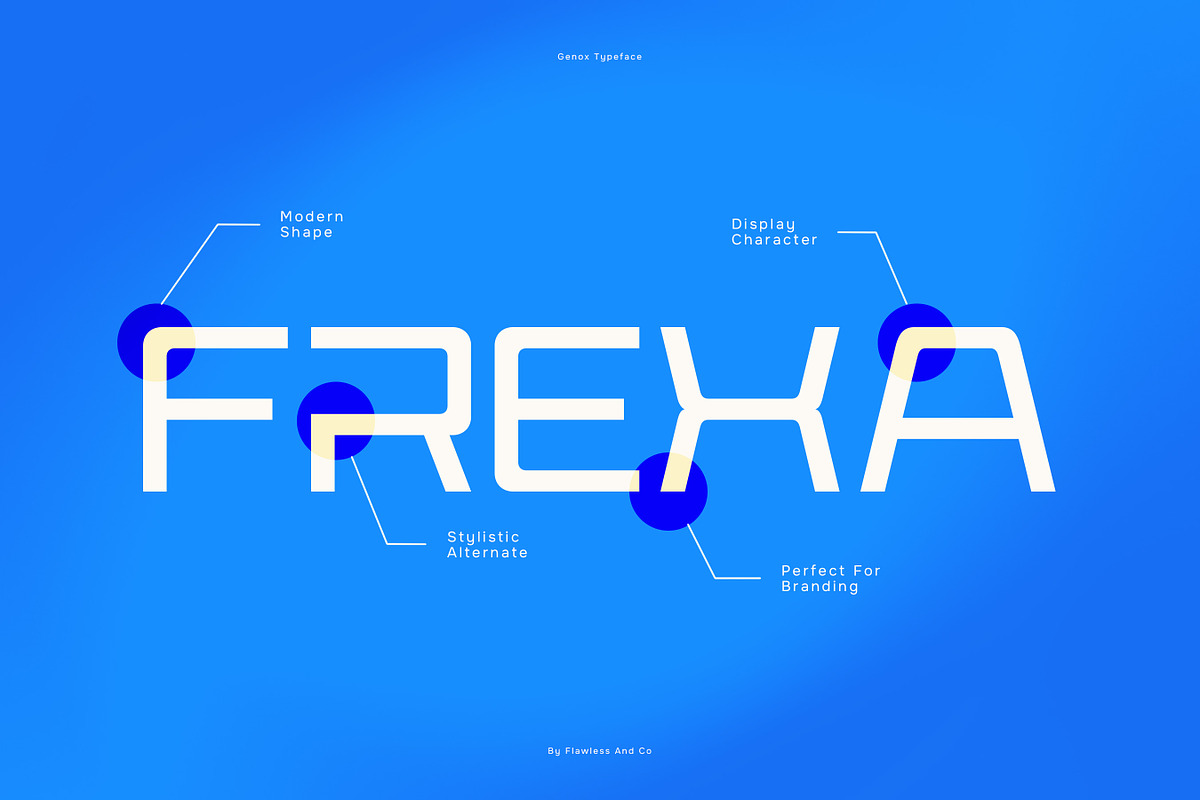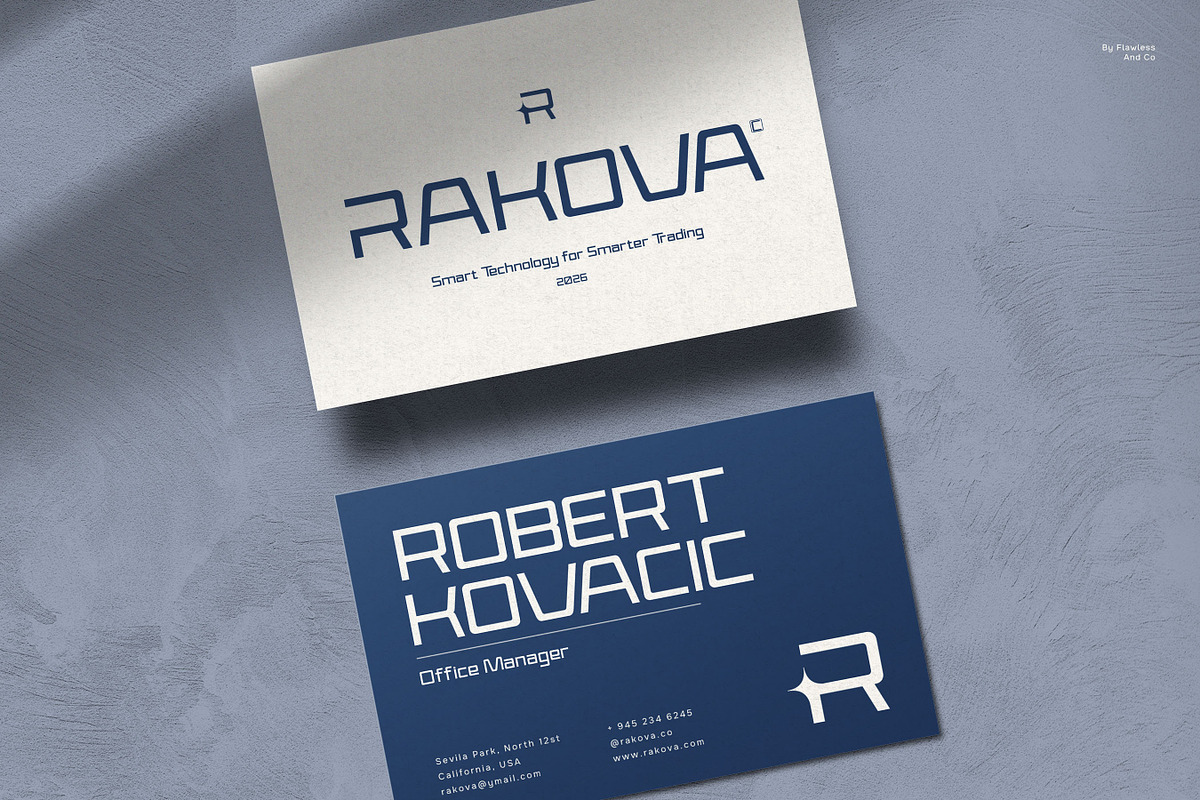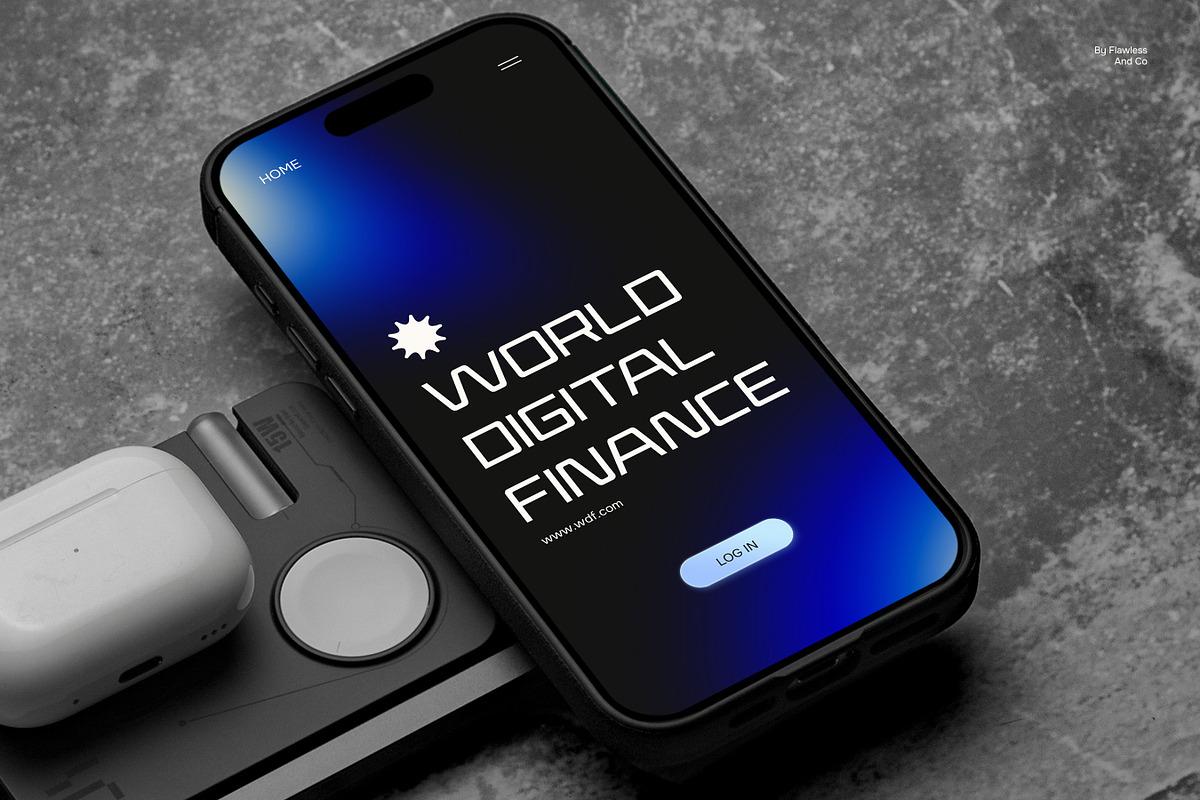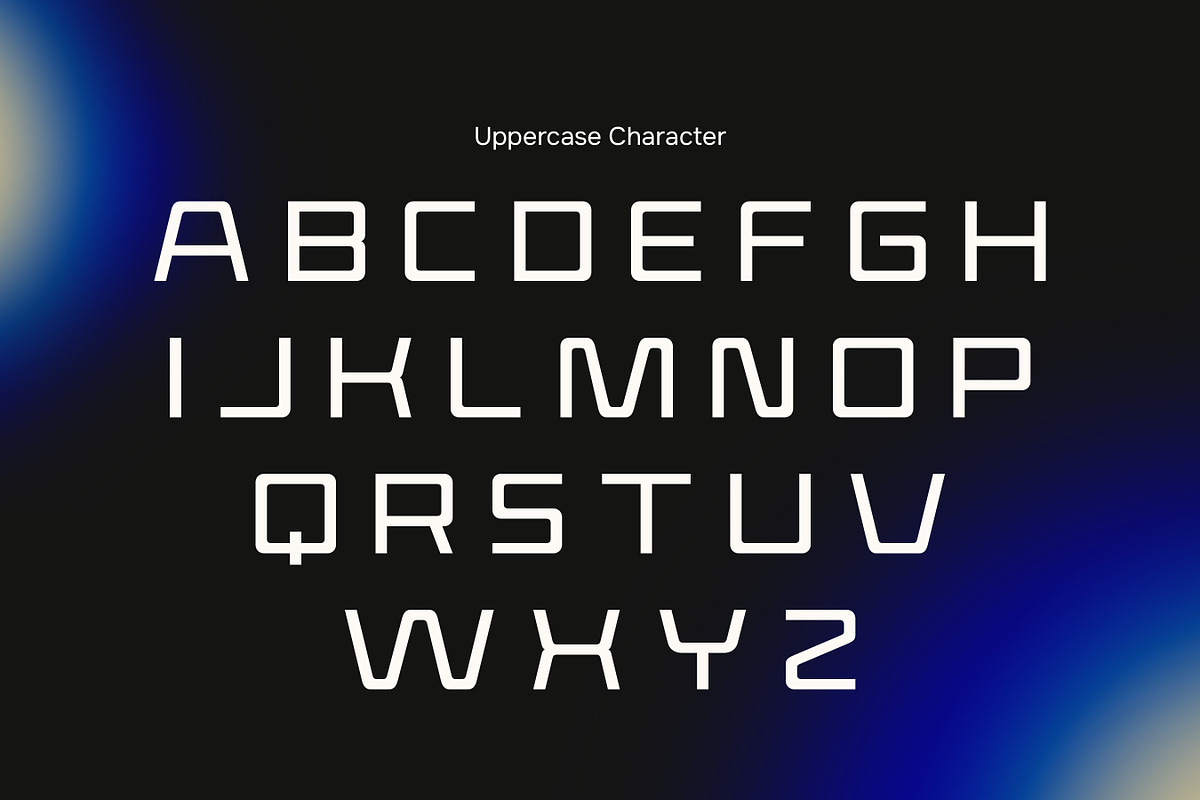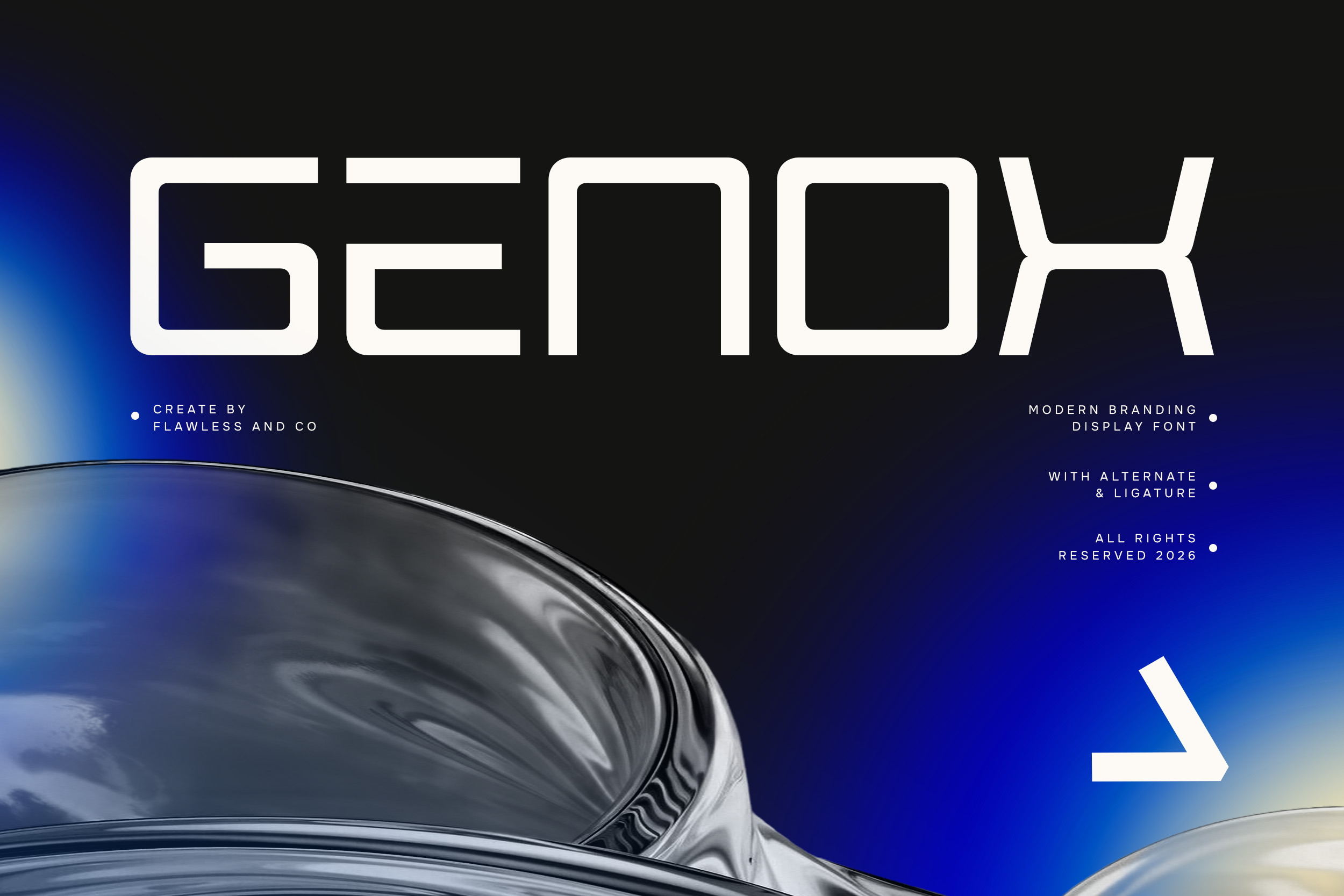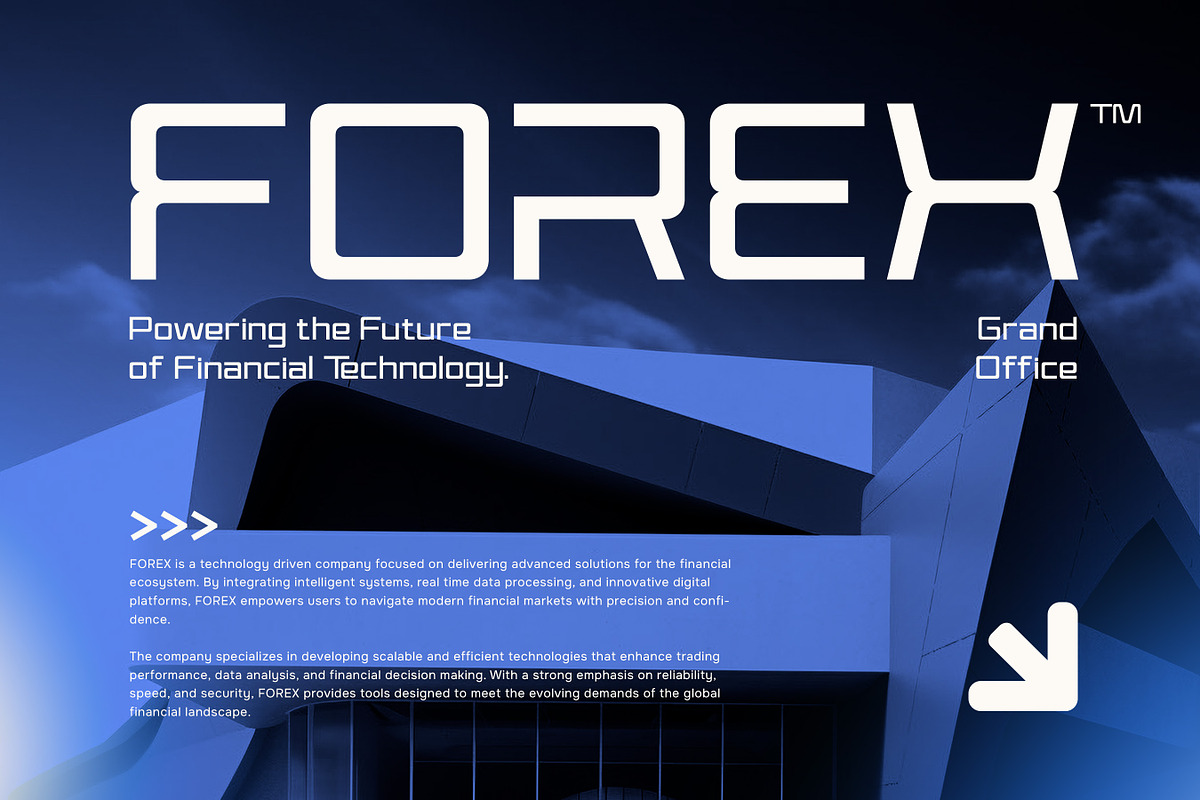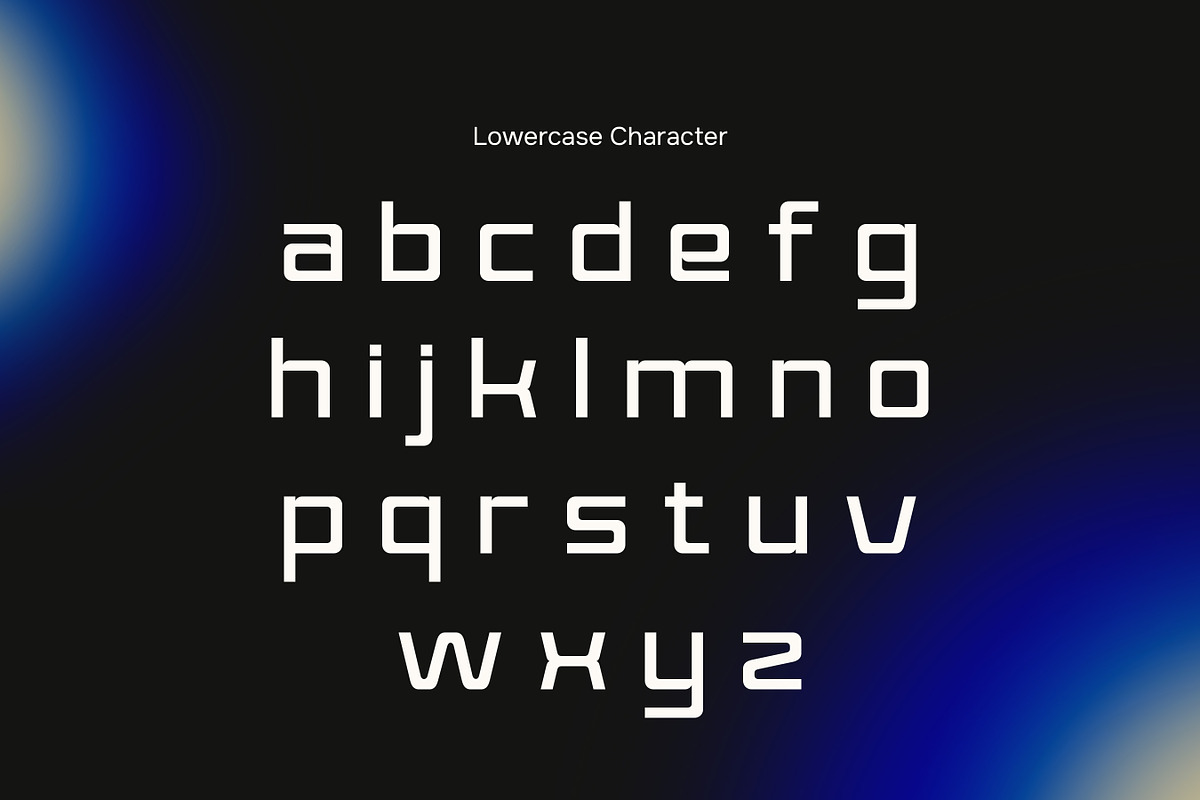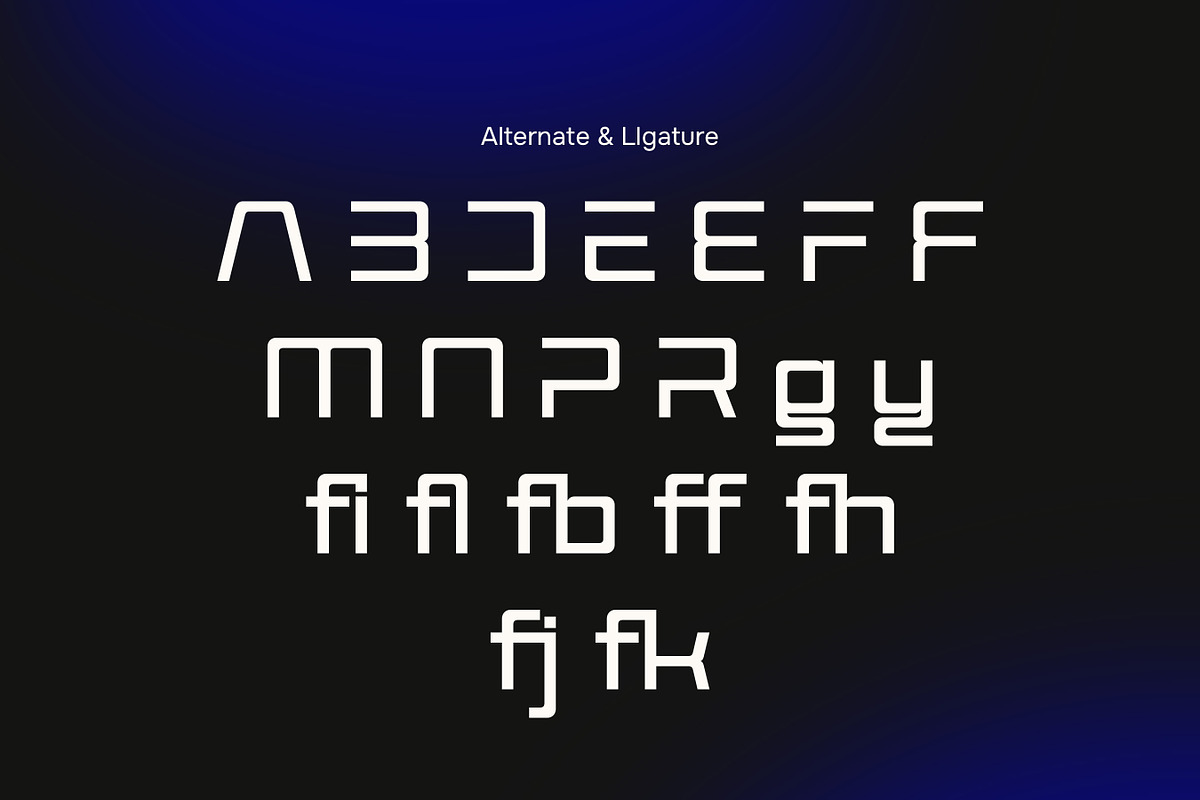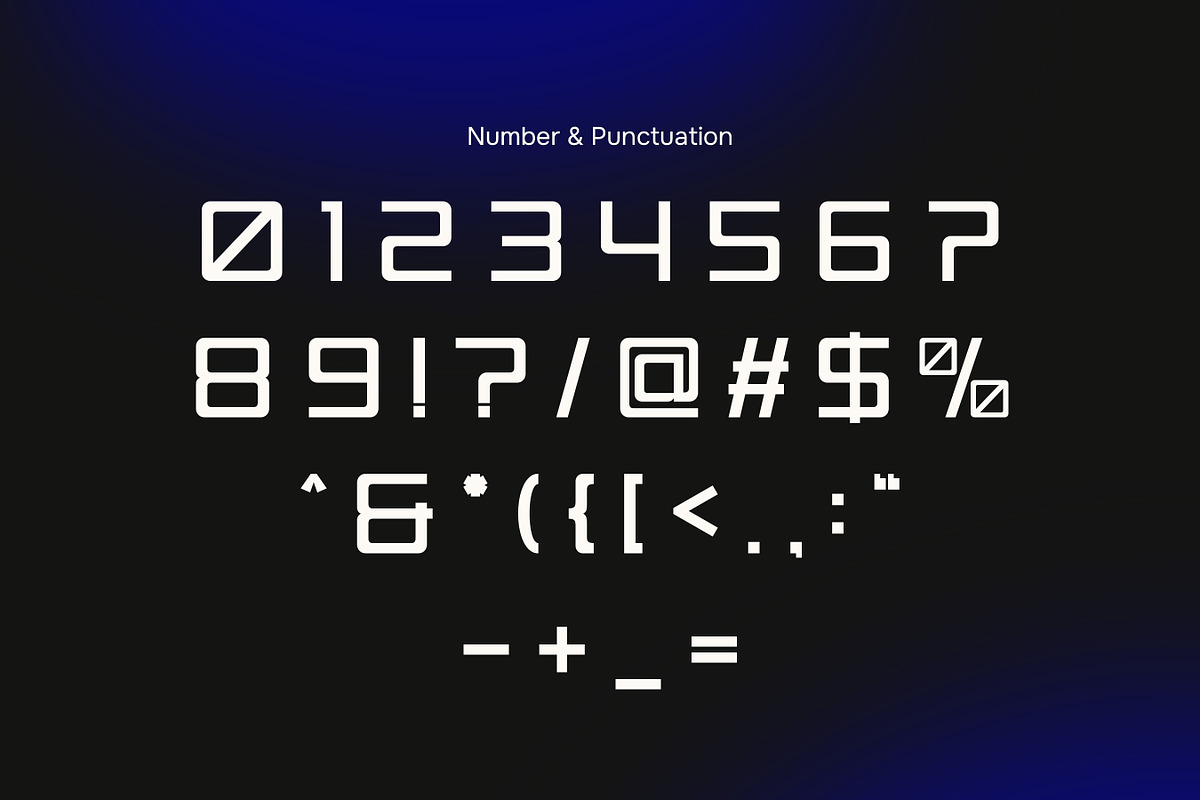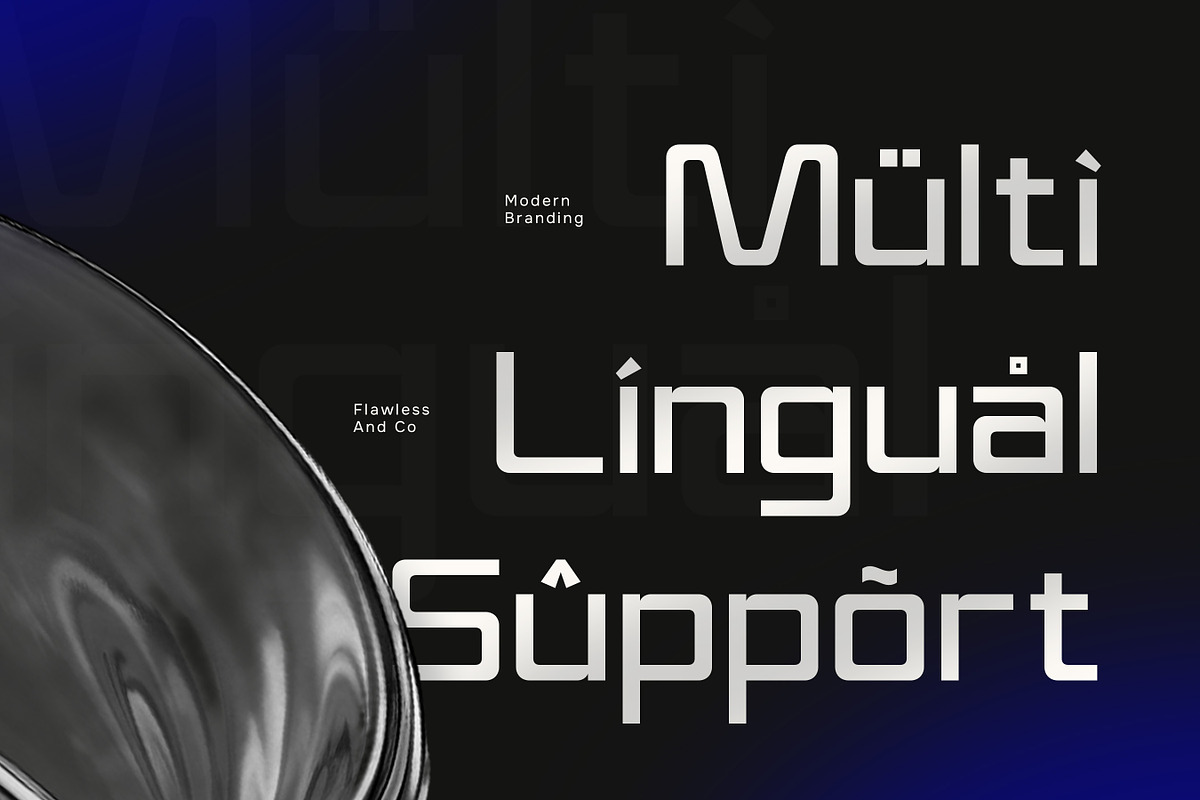
Genox - Modern Branding Display Font
Genox is a modern branding display typeface crafted to create a strong and memorable visual identity. With its clean structure, sharp edges, and contemporary letterforms, Genox delivers a confident and professional look that stands out across various design needs. Its distinctive style makes it perfect for branding projects that require clarity, impact, and a modern aesthetic. Whether you’re designing logos, headlines, or promotional materials, Genox brings a powerful and stylish presence to your work.
Who Should Use Genox?
Genox is ideal for designers, creatives, and brands who prefer a clean, modern aesthetic with a lighter visual feel. It’s especially suited for projects that require clarity, sophistication, and a contemporary branding style.
Suitable For:
- Modern branding and identity design
- Minimalist logo creation
- Editorial and magazine layouts
- Social media visuals
- Packaging and product design
- Corporate and startup branding
- Website and UI design
- Clean display typography